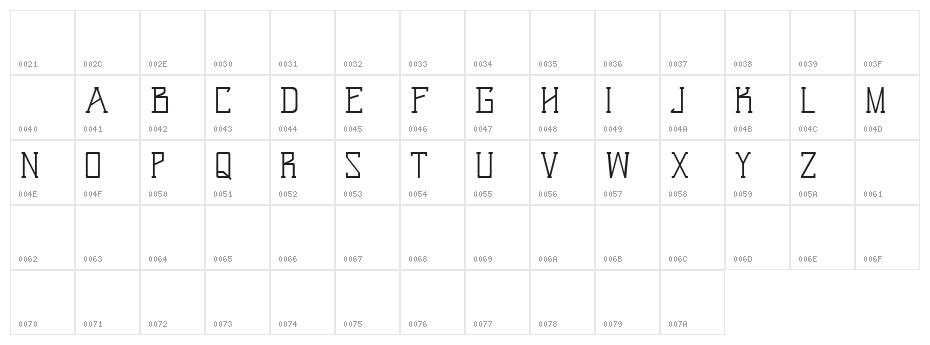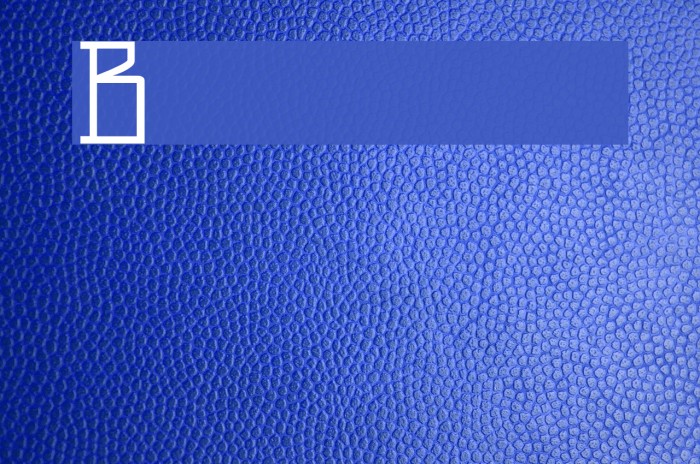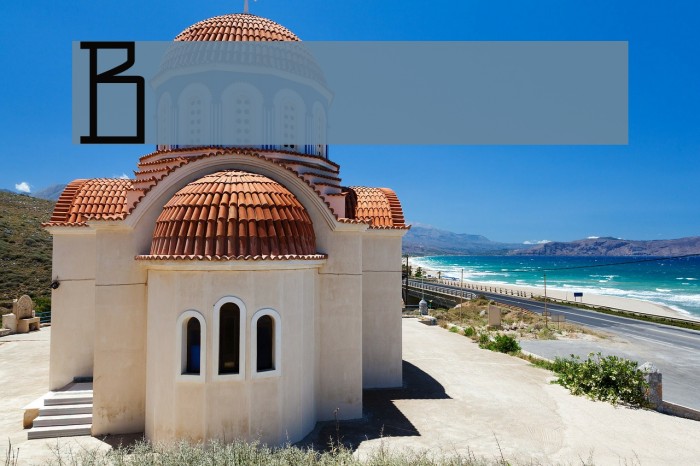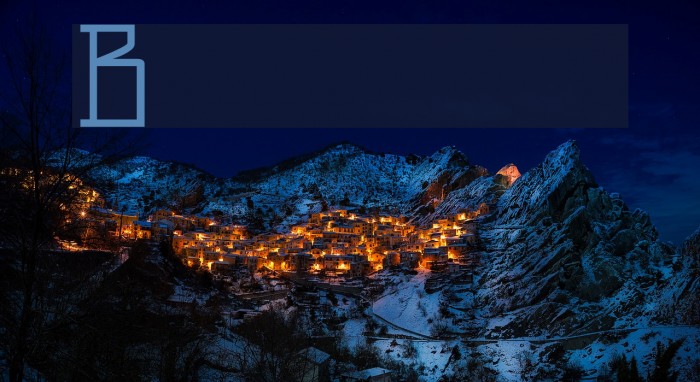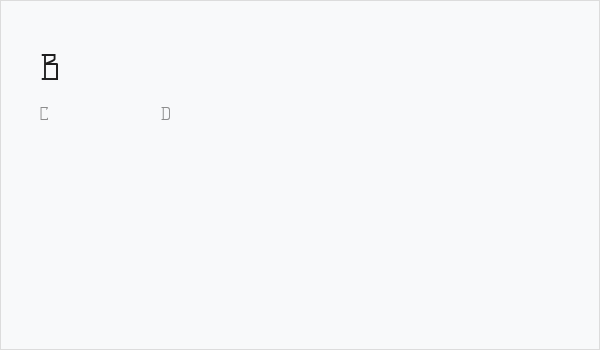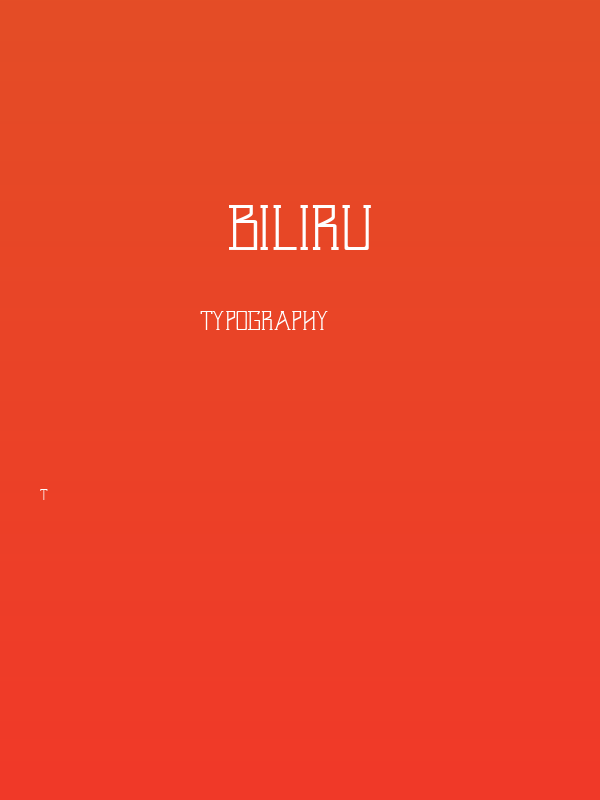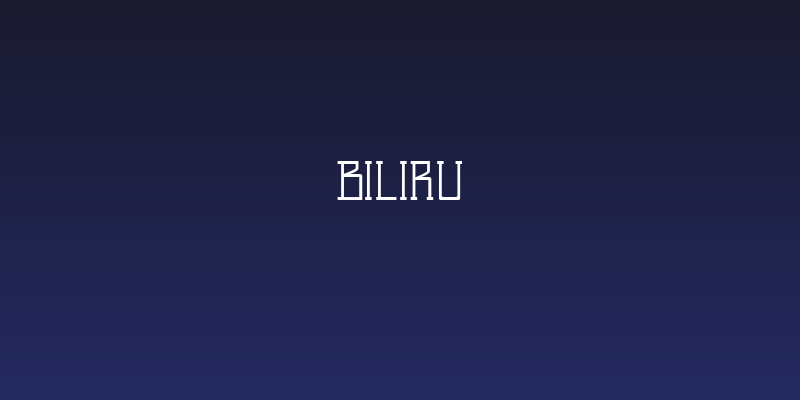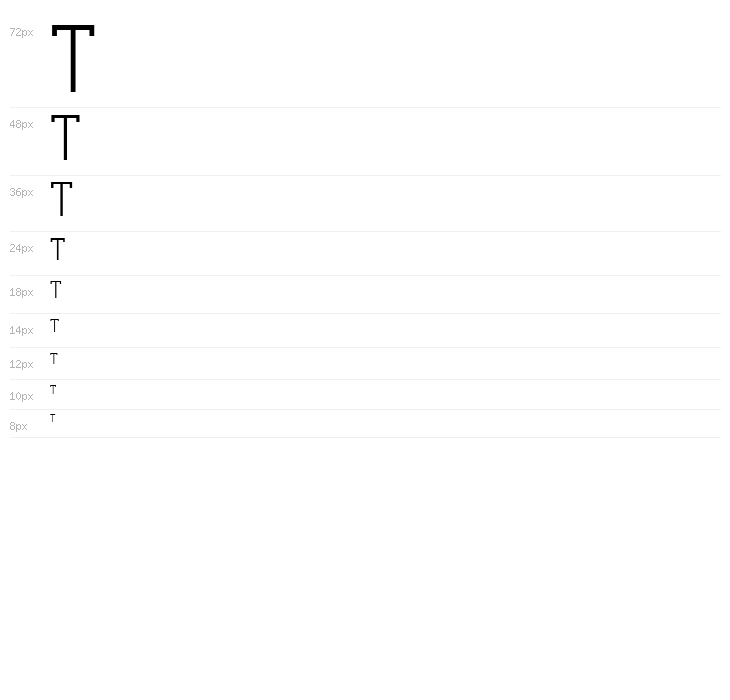
Biliru Font
Biliru Description
This font features a geometric and angular design, characterized by sharp edges and a distinct, modern aesthetic. The uppercase letters are uniform in height, with a consistent stroke width that gives a clean and structured appearance. The design incorporates unique elements such as diagonal cuts and extended serifs, adding a touch of sophistication and style. The overall look is bold and impactful, making it suitable for attention-grabbing headlines and titles. Its architectural feel is reminiscent of modernist design, offering a contemporary twist on traditional letterforms.
| Proposed Projects | Ideal for branding, posters, and editorial design where a modern and bold statement is needed. |